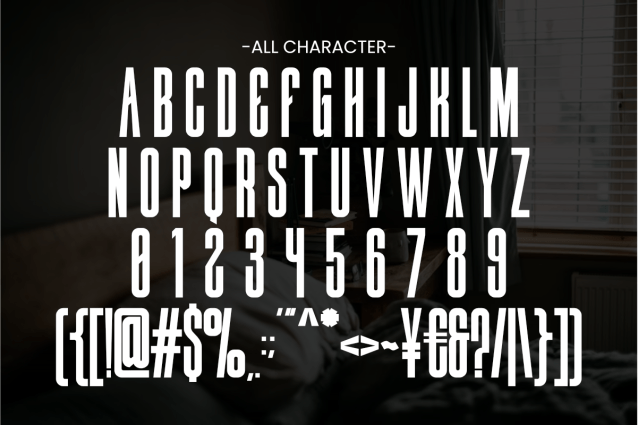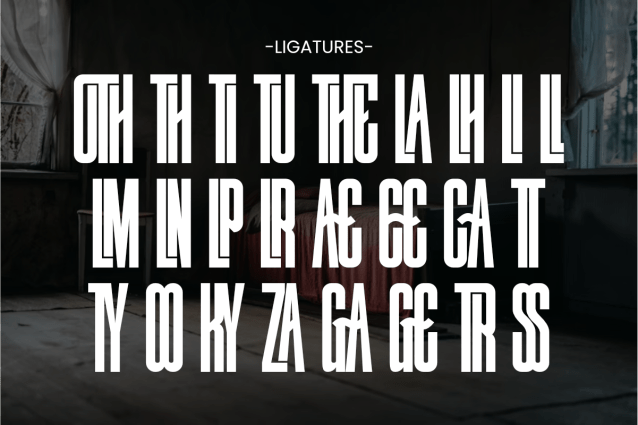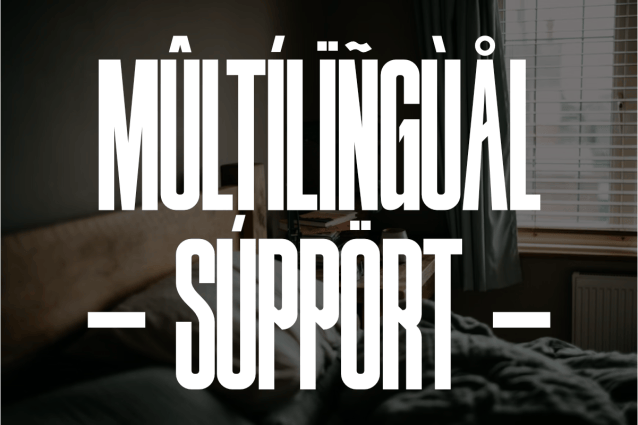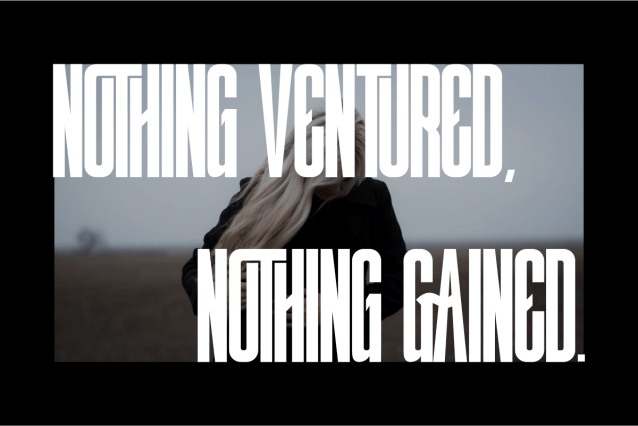
Nothing Sans Sirif Font
Nothing Font is an ultra-condensed sans serif font with a bold and dramatic personality. Featuring extremely tall letterforms and clean geometric shapes, this font is perfect for creating striking headlines, posters, logos, and branding that demand attention. Ideal for modern advertising, music covers, fashion editorials, movie titles, sports designs, and product packaging, Nothing delivers maximum visual impact with a minimal yet powerful design.